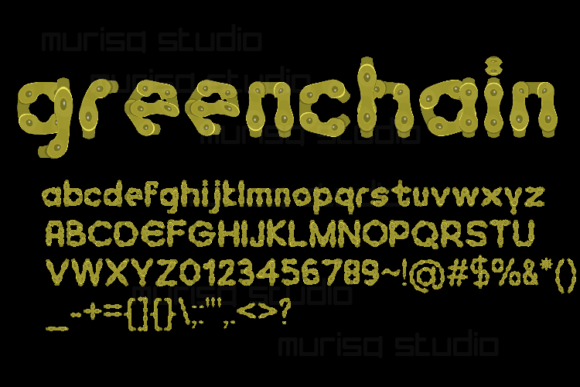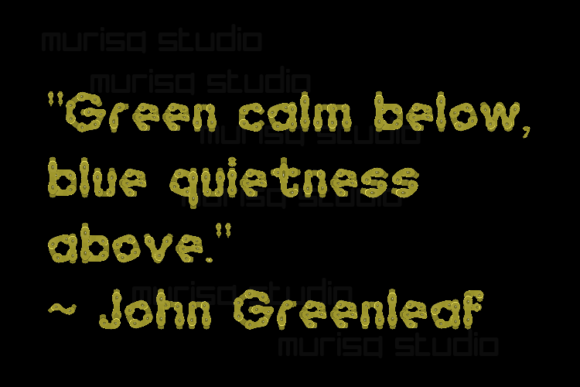
About Greenchain Font
Greenchain is a cool and incredibly unique color font that adds a touch of creativity and charm to your designs. Whether you’re working on cartoon-related designs, children’s games, or any creation that requires a lovely touch, this font is an amazing choice.
With its playful green chain-like letterforms, Greenchain brings a sense of fun and whimsy to your typography. Its vibrant colors and distinct design make it stand out and capture the imagination of your audience.
This font is versatile and well-suited for various projects. Whether you’re creating graphics for children’s books, designing engaging game interfaces, or adding a playful element to any creative endeavor, Greenchain elevates your designs with its uniqueness.
Embrace the cool and incredibly unique nature of Greenchain and watch as it enhances your cartoon-related designs, children’s games, and other creations. With this font, you have a powerful tool to create visually captivating and memorable designs that resonate with your target audience. Let Greenchain unleash your creativity and bring your ideas to life with its lovely and distinctive touch.